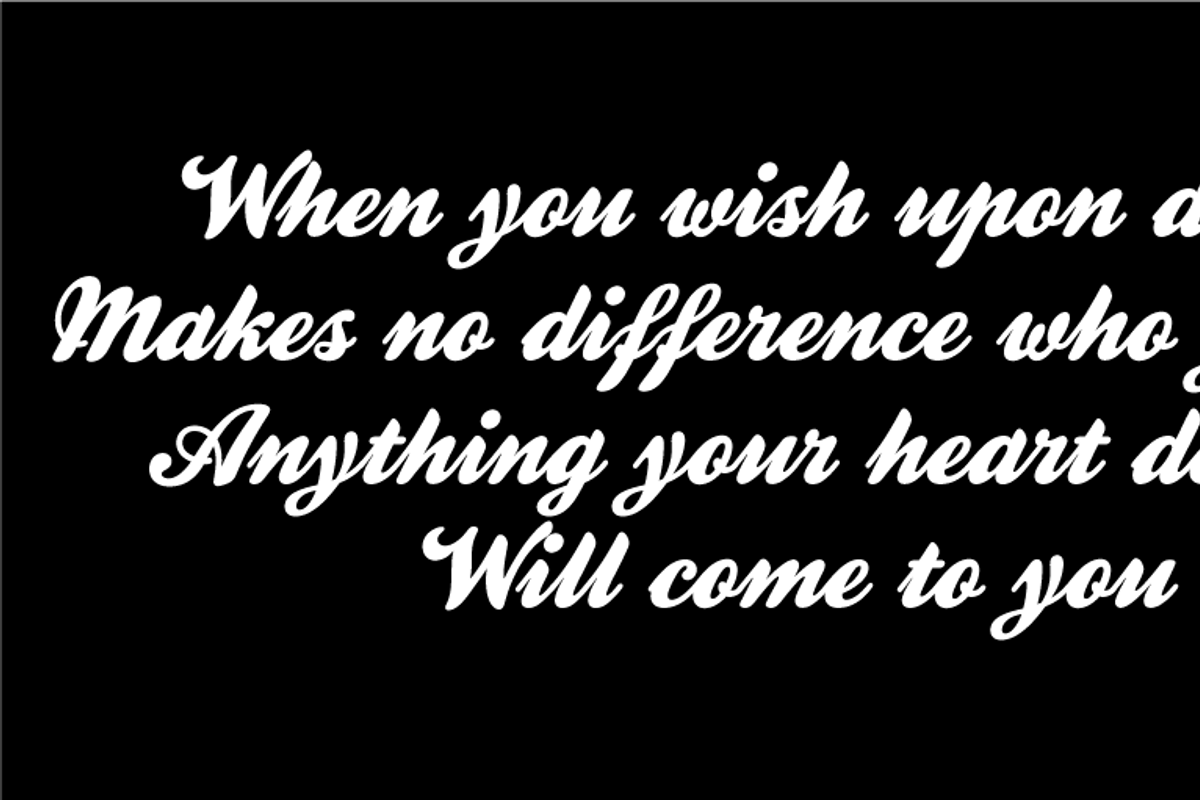
Kestrel Script
Kestrel Script is a digitized version of a font originally designed for dry transfer lettering. It's a heavy formal script reminiscent of Commercial Script, featuring distinct curly strokes and ball terminals. The swashed capitals add a touch of flourish to the design. Suitable for vintage-themed projects like wedding invitations or branding materials.